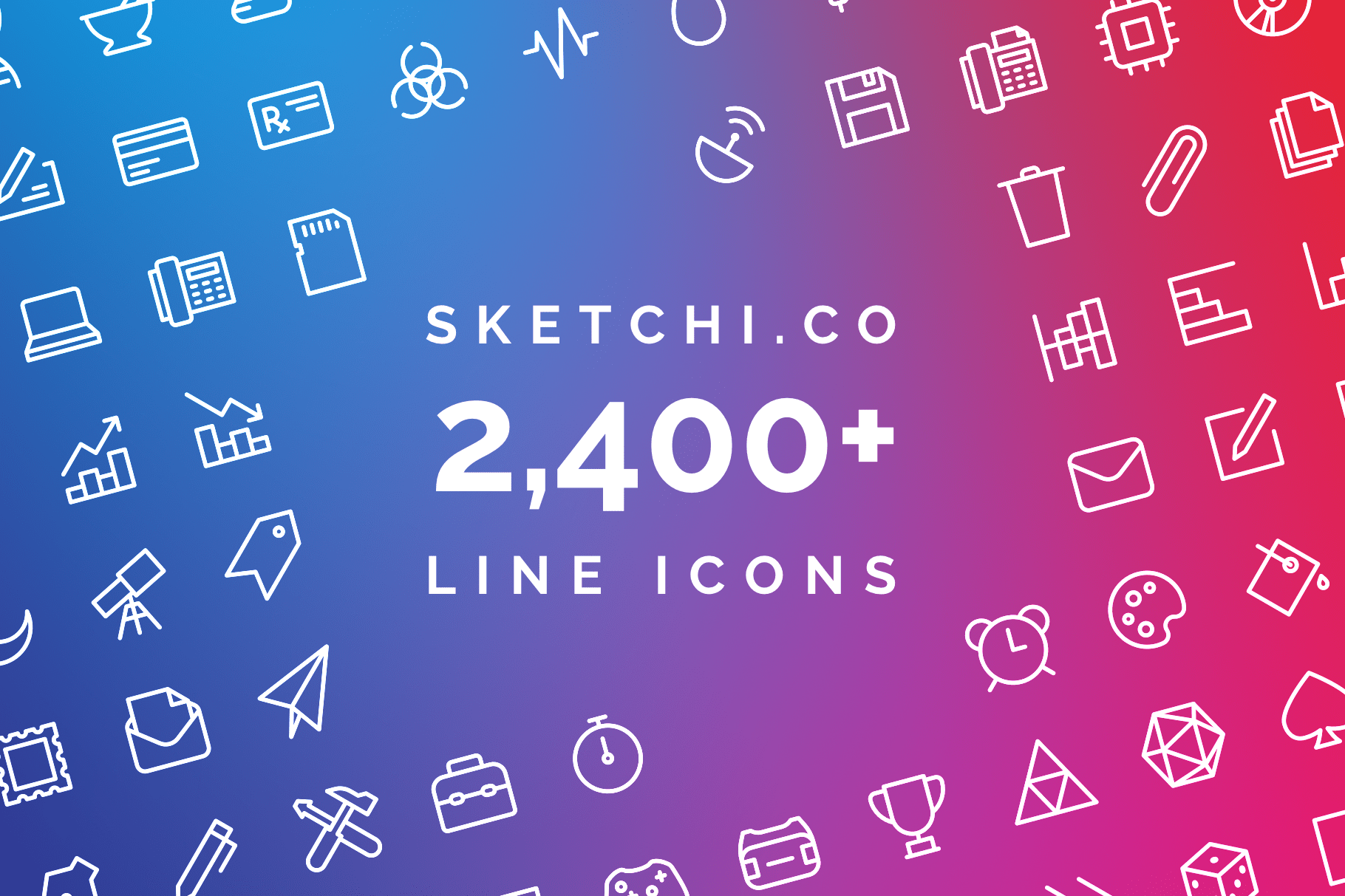
Sketchi.co 2,400 Icon Font & Library
Sketchi.co is an elegantly simple icon set perfect for any UI & UX project. Each icon is precision-crafted and completely customizable. Perfect for everything from Visual Designs to Wireframes, and these icons can even be used as the foundation for your next Design System.
A library of more than 2,400 symbols organized into 11 different collections and 87 subcategories, making it easy to explore and find the glyphs you may be looking for. With IconJar support and source files for Figma, Sketch, and Adobe XD, you can take Sketchi.co with you on any project.
- Over 2,400 Beautiful Vector Icons
- Crafted Using a Custom 24 x 24pt Grid
- Style & Appearance Overrides